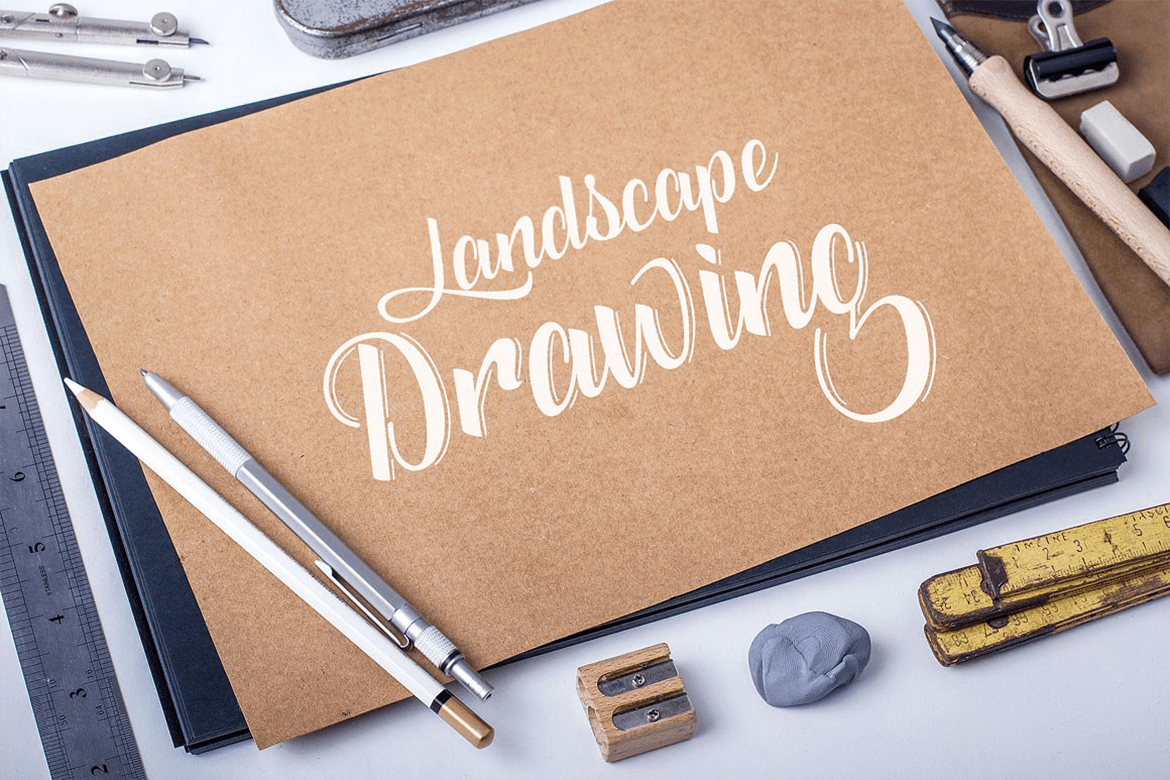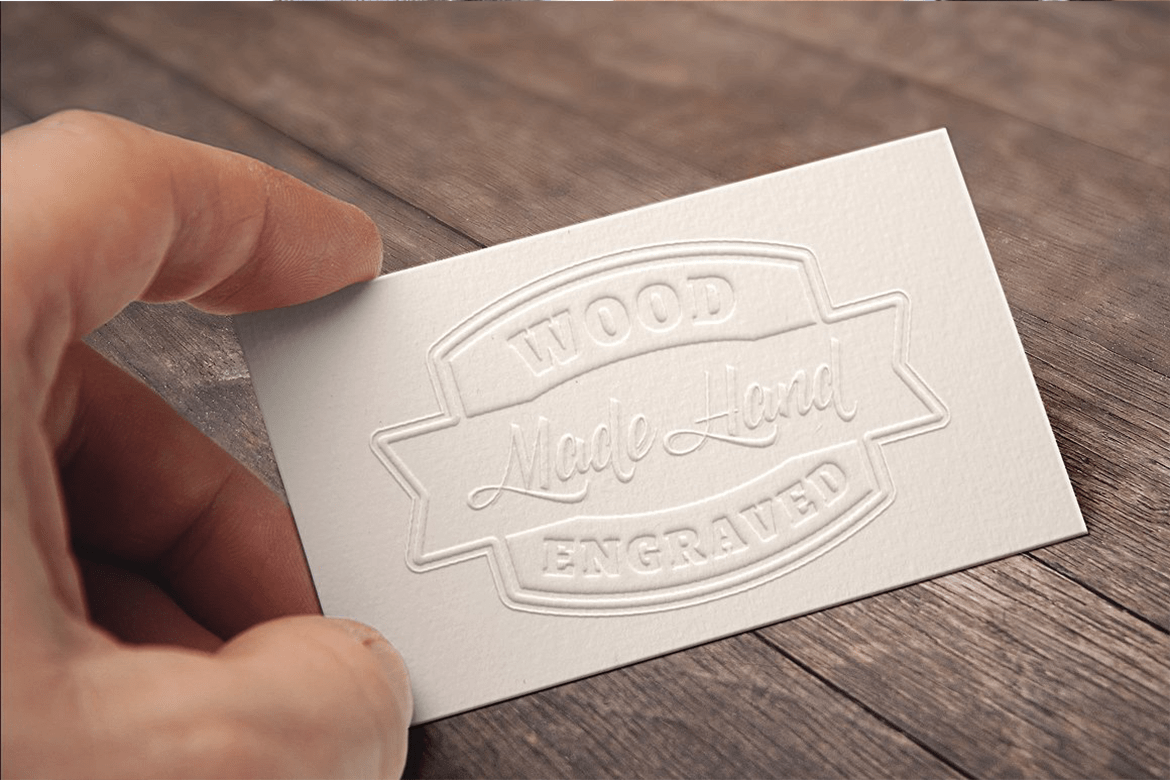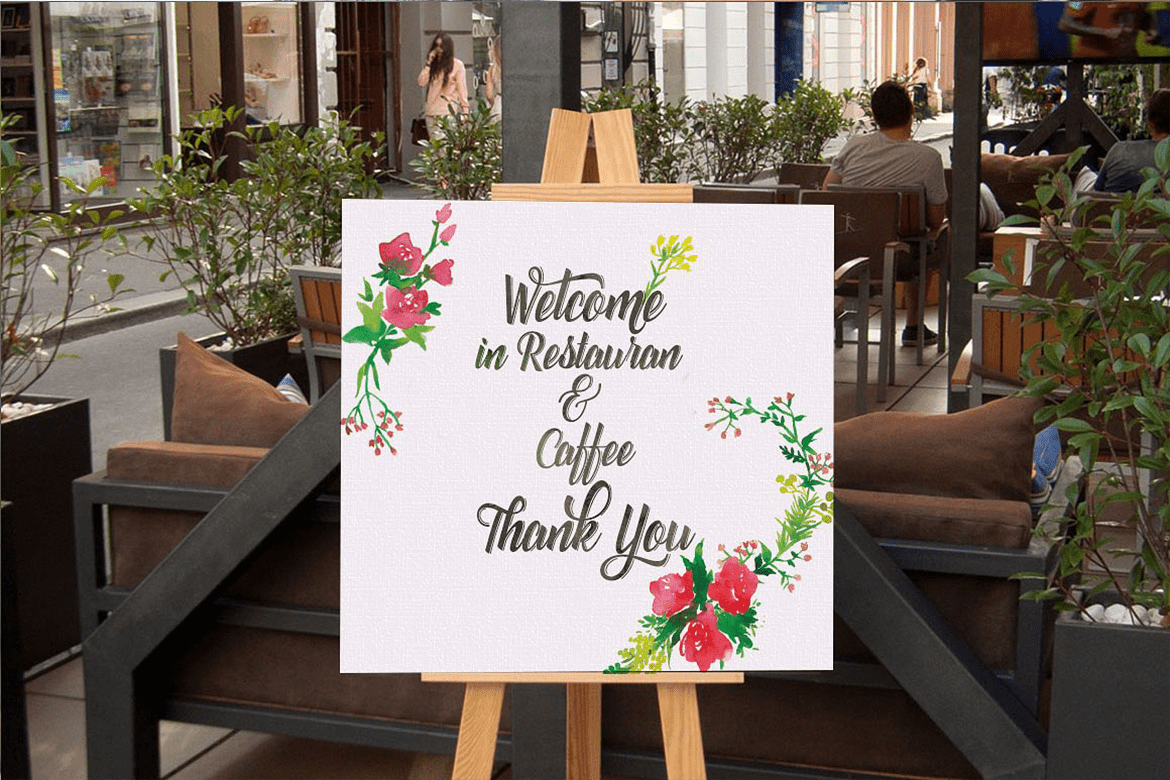
Catfish
Catfish is a fontbrush script that is beautiful and unique, it is a model of modern calligraphy typefaces, in combination with a calligraphy writing style. The Features of this fonts is;
- Contextual Alternates
- Standart ligatures
- Stylistic Alternates
- Stylistic sets